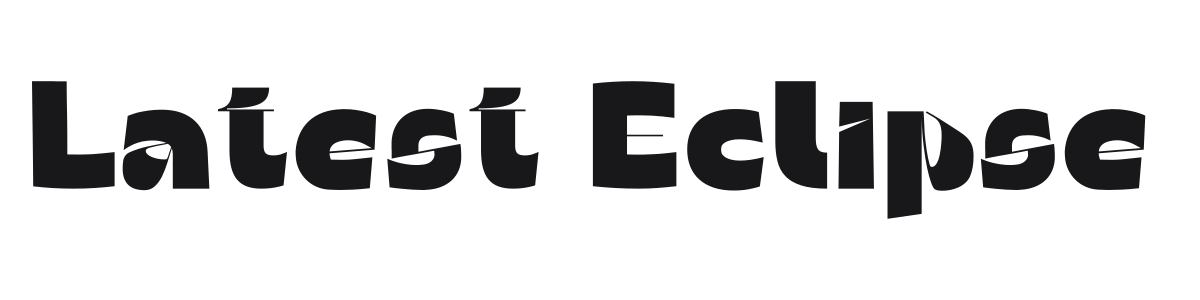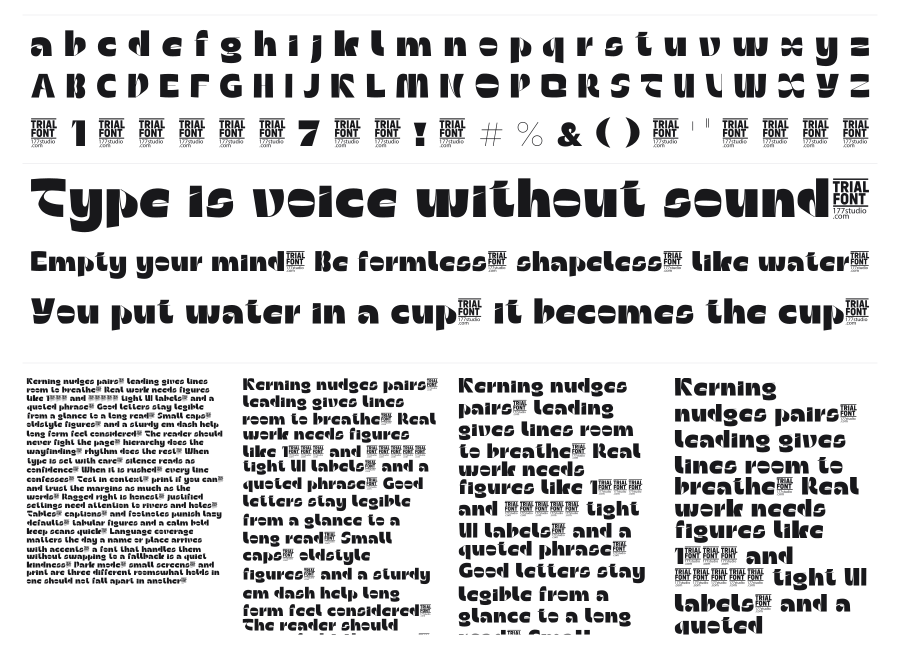
Latest Eclipse
Latest Eclipse is a heavy display sans built around a bold conceptual trick: a horizontal slice cuts clean through every character like a solar eclipse crossing a letterform. The effect is arresting and immediately graphic, making text feel like a visual event rather than just type. Strong at large sizes for posters, album covers, and identity work that needs attitude.